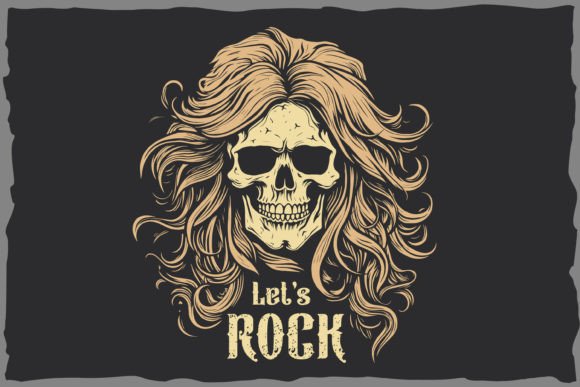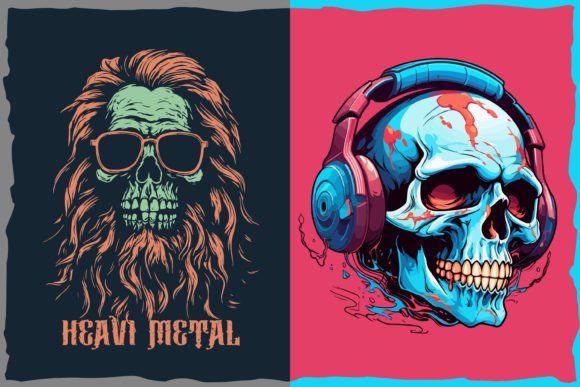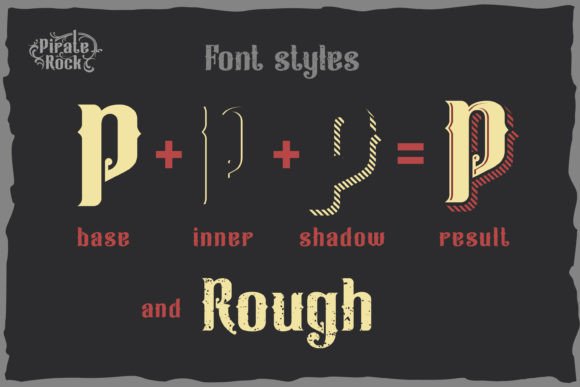
Introduction to Pirate Rock Font
Pirate Rock is a vintage layered font that adds a rugged, adventurous feel to your designs.
With its worn edges and textured layers, itโs perfect for creating bold headlines, posters, and logos that command attention Let Pirate Rock bring a touch of swashbuckling style to your projects, whether youโre crafting invitations or signage for your next adventure-themed event.
Key Features of Pirate Rock Font
Why Choose Pirate Rock Font?
Pirate Rock Font offers exceptional quality and versatility, making it a valuable addition to your design toolkit. Whether you’re creating for personal projects or commercial use, Pirate Rock Font delivers professional results.